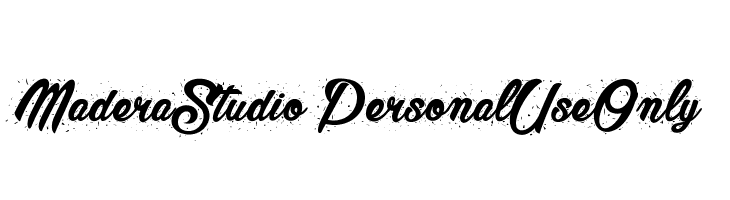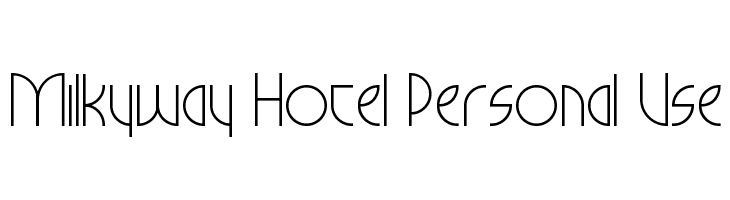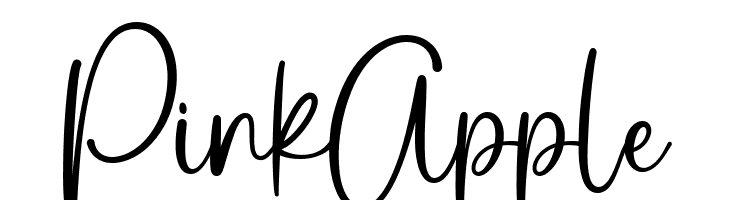
A playful, casual handwritten font with smooth, connected letterforms.
A bold, playful handwritten font with a casual and dynamic style.
An elegant script font with flowing, ornate characters.
A bold, italicized font with a modern, sleek, and slightly condensed style.
A bold, modern font with a slanted, dynamic style and tight spacing.
A modern, rounded font with a clean and approachable design.